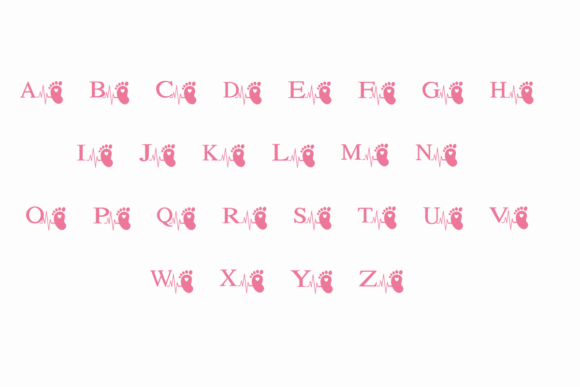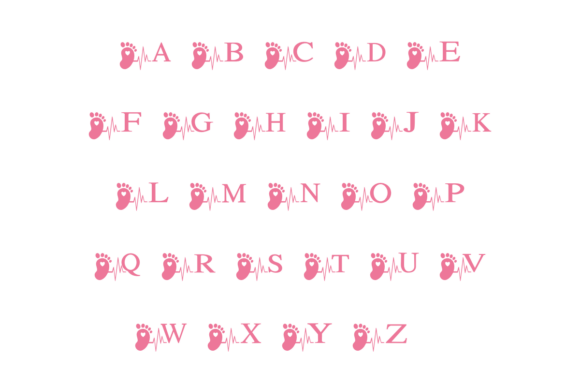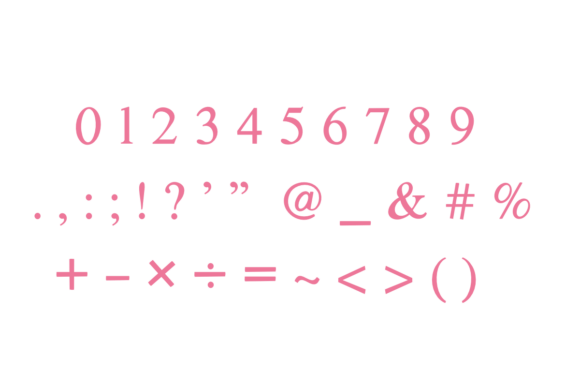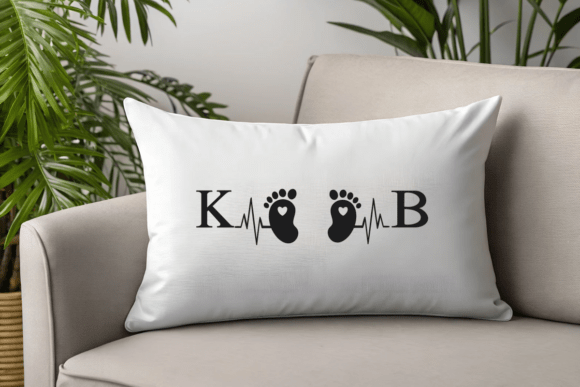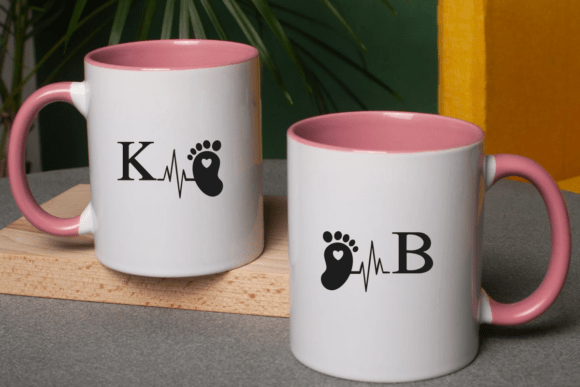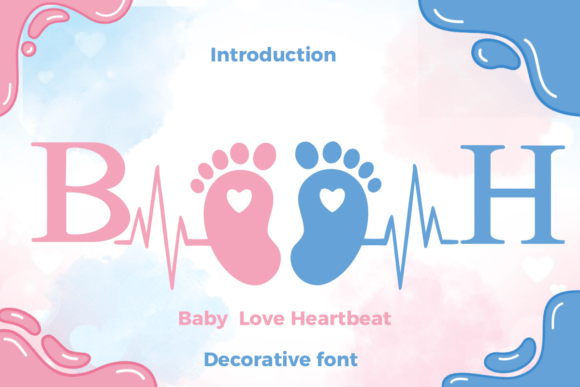
Baby Love Heartbeat Font: A Lovely Decorative Font for Your Creative Projects
Baby Love Heartbeat is a charming and adorable font that is sure to capture the hearts of designers, crafters, and anyone who loves working with creative typography. This lovely decorative font is perfect for adding a touch of sweetness and innocence to your projects, making it ideal for baby-themed designs, Valentine’s Day cards, and other romantic creations.
What Makes Baby Love Heartbeat Font So Special?
Baby Love Heartbeat font is a unique and eye-catching typeface that features a distinctive heartbeat rhythm, which gives it a playful and lively feel. The font is designed to resemble a baby’s heartbeat, making it a perfect fit for projects related to babies, parenting, and love. The font’s decorative style is sure to add a touch of whimsy and fun to your designs, setting them apart from more traditional and boring typography.
Adding Baby Love Heartbeat font to your creative projects is easy and fun. Here are some ideas to get you started:
- Baby Shower Invitations: Create adorable baby shower invitations that feature the Baby Love Heartbeat font. You can use it to add a cute and playful touch to your designs, making them perfect for baby-themed parties.
- Valentine’s Day Cards: Use the Baby Love Heartbeat font to create romantic and sweet Valentine’s Day cards. The font’s heartbeat rhythm is perfect for expressing love and affection.
- Baby-Themed Crafts: Add the Baby Love Heartbeat font to your baby-themed crafts, such as onesie designs, baby blocks, and nursery decor. The font’s playful style is sure to delight parents and babies alike.
- Digital Art: Use the Baby Love Heartbeat font to add a touch of sweetness to your digital art projects. You can create stunning typography-based art pieces that feature the font’s unique heartbeat rhythm.
Why Designers and Crafters Love Baby Love Heartbeat Font
Designers and crafters love Baby Love Heartbeat font for many reasons. Here are some of the benefits of using this lovely decorative font:
- Unique and Eye-Catching: The Baby Love Heartbeat font is a one-of-a-kind typeface that is sure to grab attention. Its distinctive heartbeat rhythm makes it a standout font that will set your designs apart from the rest.
- Versatile: Baby Love Heartbeat font can be used for a wide range of projects, from digital art to print designs, and from baby-themed crafts to romantic Valentine’s Day cards.
- Adorable: The font’s playful and sweet style is sure to delight anyone who sees it. It’s the perfect way to add a touch of cuteness to your designs.
Baby Love Heartbeat font is a lovely decorative font that is sure to capture the hearts of designers, crafters, and anyone who loves working with creative typography. Its unique and eye-catching style, ease of use, and versatility make it a perfect addition to any creative project. Whether you’re working on baby-themed designs, Valentine’s Day cards, or digital art, Baby Love Heartbeat font is sure to add a touch of sweetness and innocence to your creations. So why wait? Download Baby Love Heartbeat font today and add it to your creative ideas!